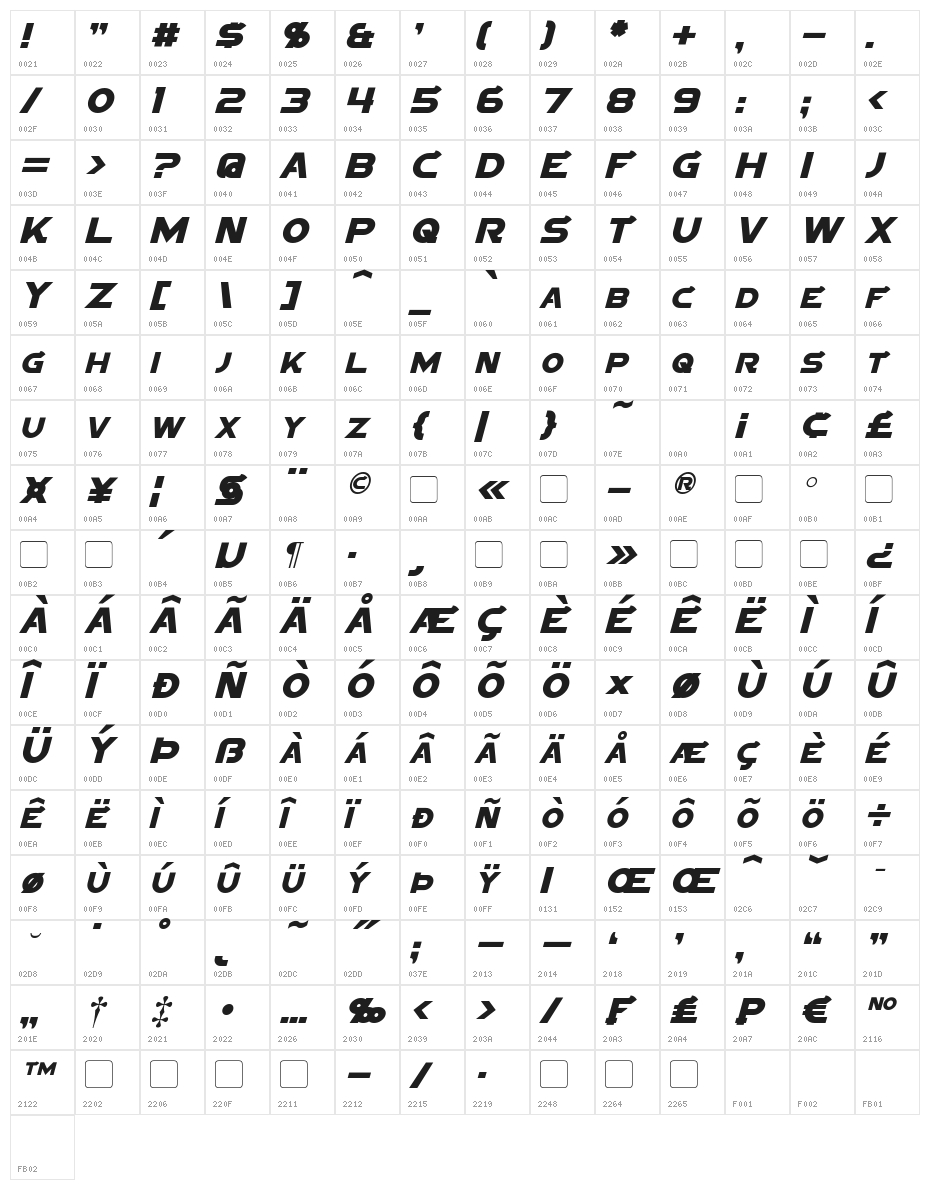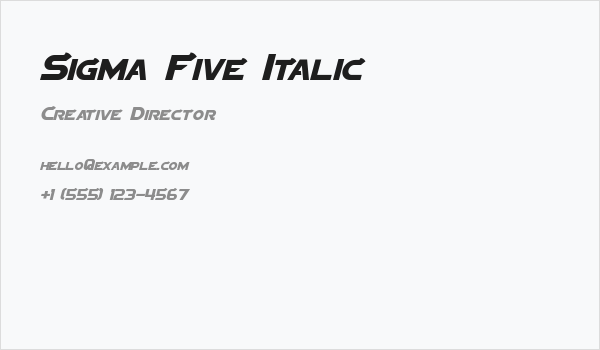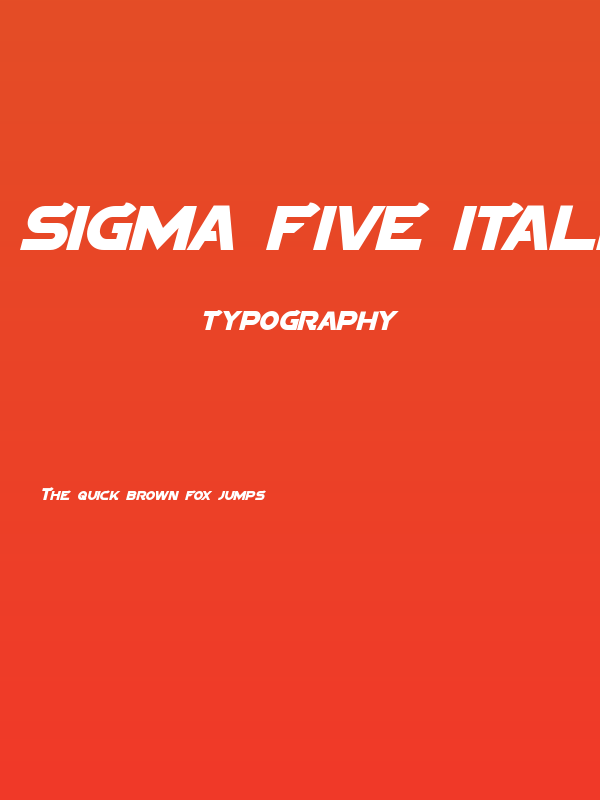
Sigma Five Italic Font
Sigma Five Italic Description
This font exhibits a bold and dynamic style with an italicized slant, giving it a sense of motion and energy. The characters are thick and robust, with sharp angles and a futuristic appearance. The uppercase and lowercase letters maintain a consistent style, with the lowercase slightly smaller but equally bold. Numbers and special characters follow the same design principles, ensuring uniformity across all glyphs. The font's strong presence makes it ideal for attention-grabbing headlines or impactful logos.
| Proposed Projects | Ideal for sports branding, tech company logos, dynamic posters, and modern advertising campaigns. |